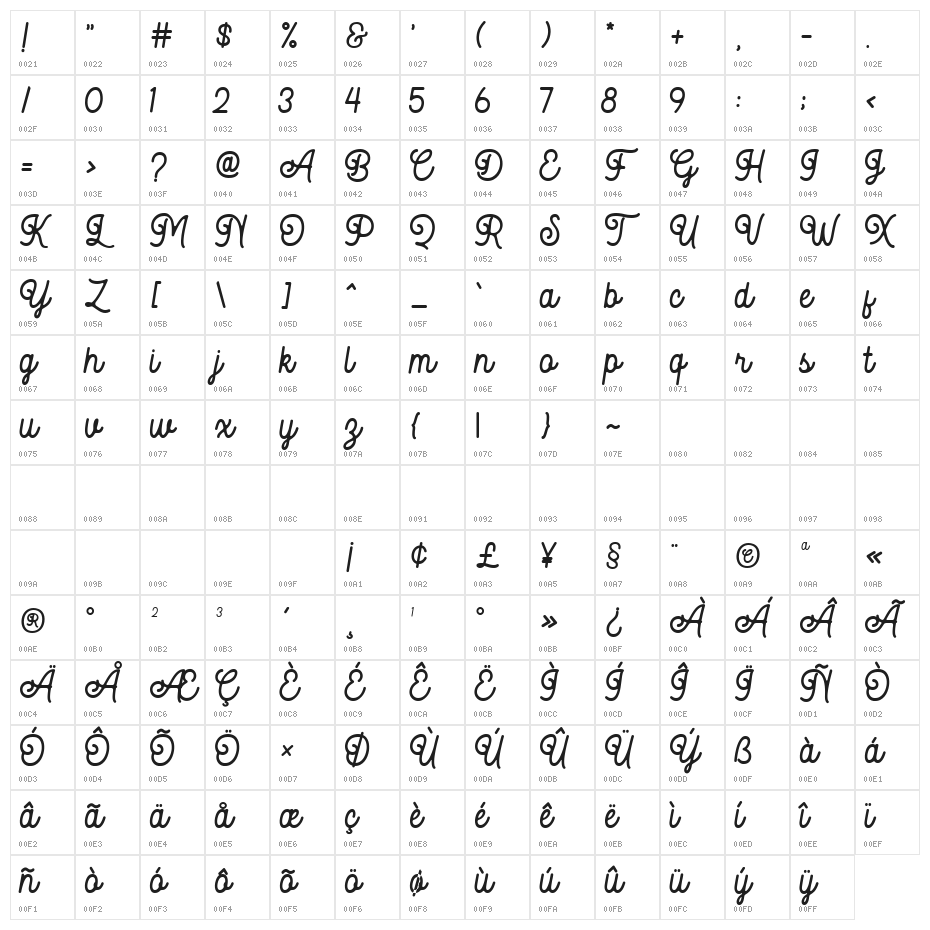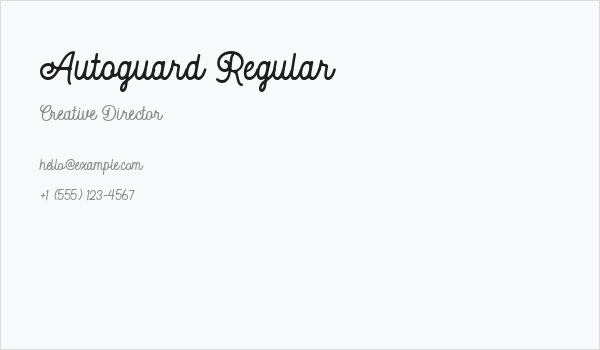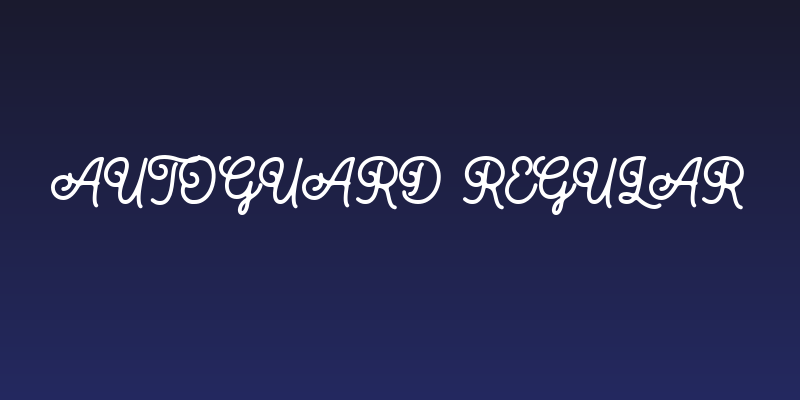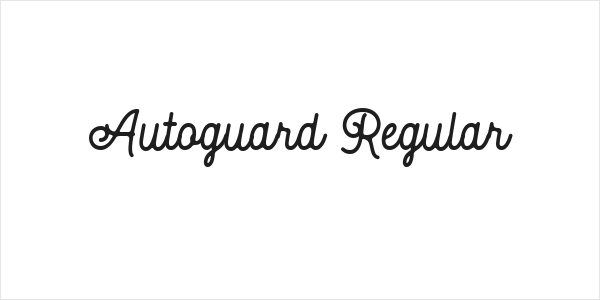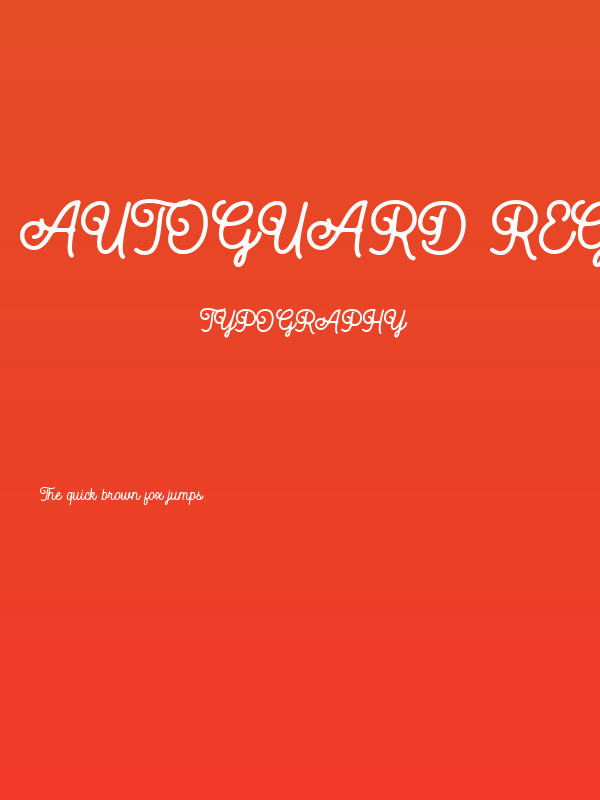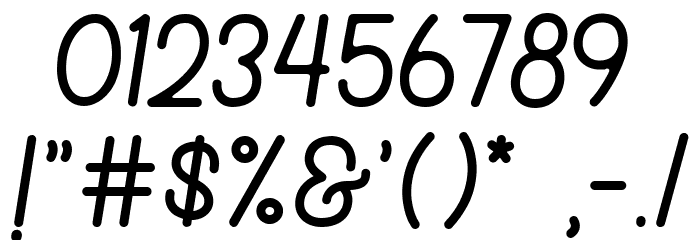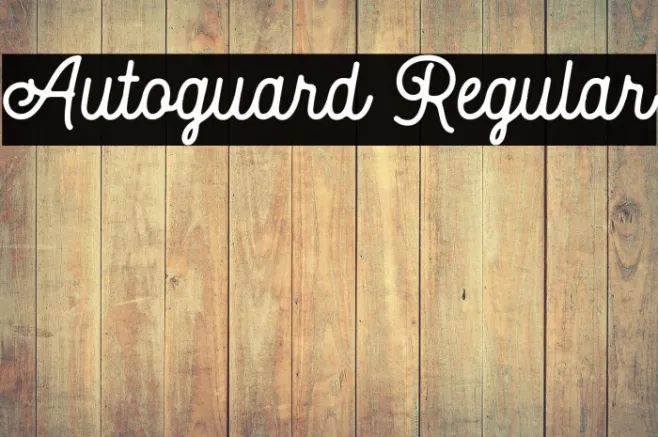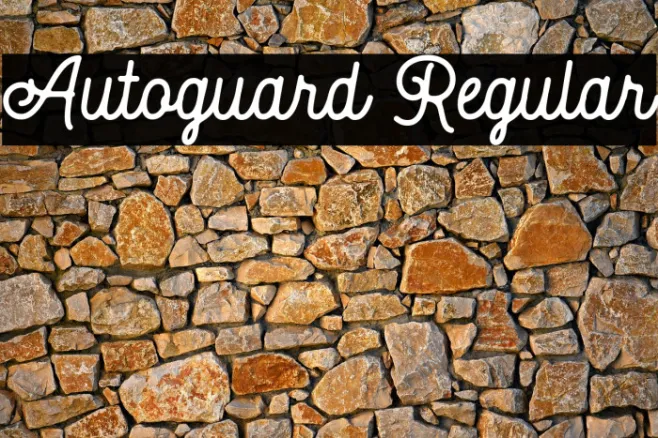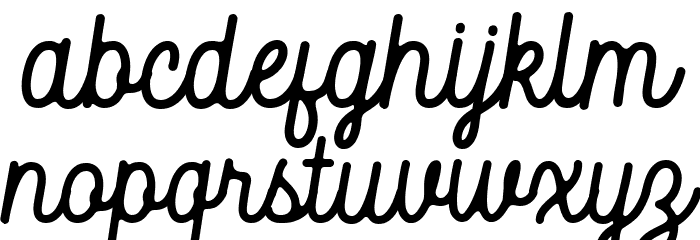
Autoguard Regular Font
Autoguard Regular Description
This font features a playful and elegant script style, characterized by smooth, flowing lines and a handwritten appearance. The uppercase letters are ornate with loops and curves, while the lowercase letters maintain a consistent, rounded form. The numerals are clear and easy to read, complementing the overall aesthetic. Special characters are designed with the same fluidity, enhancing the cohesive look. This font exudes a friendly and approachable vibe, making it suitable for a variety of creative projects.